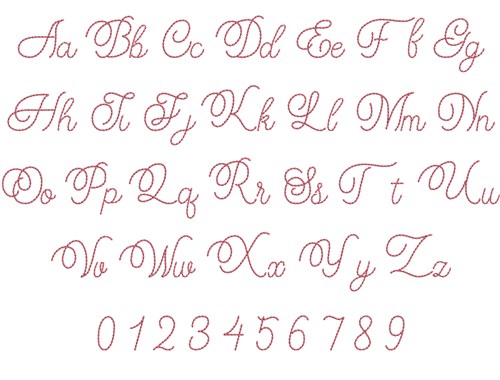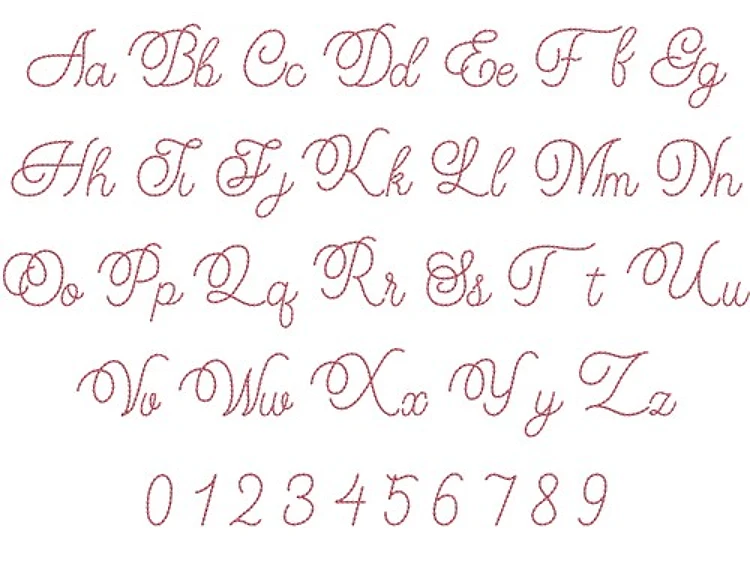
Majestic Cursive Script Embrilliance Embroidery Font - Flowing Cursive Lettering - BX font by Satin Stripes and other embroidery fonts available at EmbroideryDesigns.com.
Satin Stripes is happy to present Majestic Cursive Script Embrilliance Embroidery Font - Flowing Cursive Lettering - BX font machine embroidery font which has Delicate cursive script machine embroidery font ideal for adding personal touches to garments and accessories like scarves and bags. Available in BX font and Embrilliance formats. included. If you would like to view more embroidery fonts and alphabets please search our embroidery fonts page.
Majestic Cursive Script Embrilliance Embroidery Font - Flowing Cursive Lettering - BX font